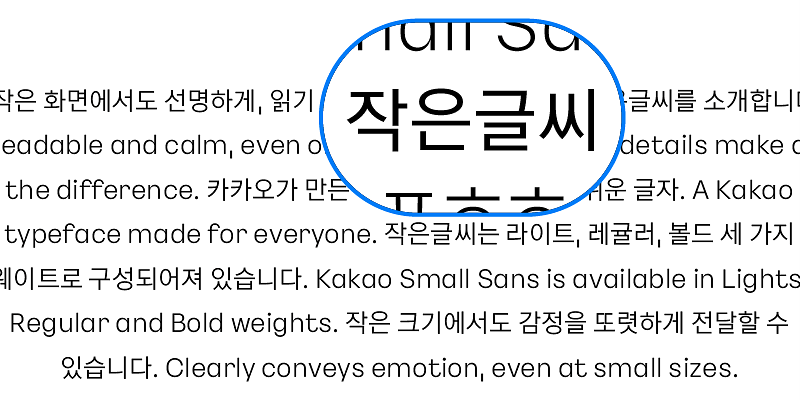
Kakao Small Sans is optimized for body text and content often displayed in smaller sizes. It adjusts spacing and detail to stay clear and legible, even on compact screens, ensuring a smooth reading experience.
Kakao values understanding people and imagining a better future together. As part of that vision, we’re introducing a digital typeface that’s easy for everyone to read and use.